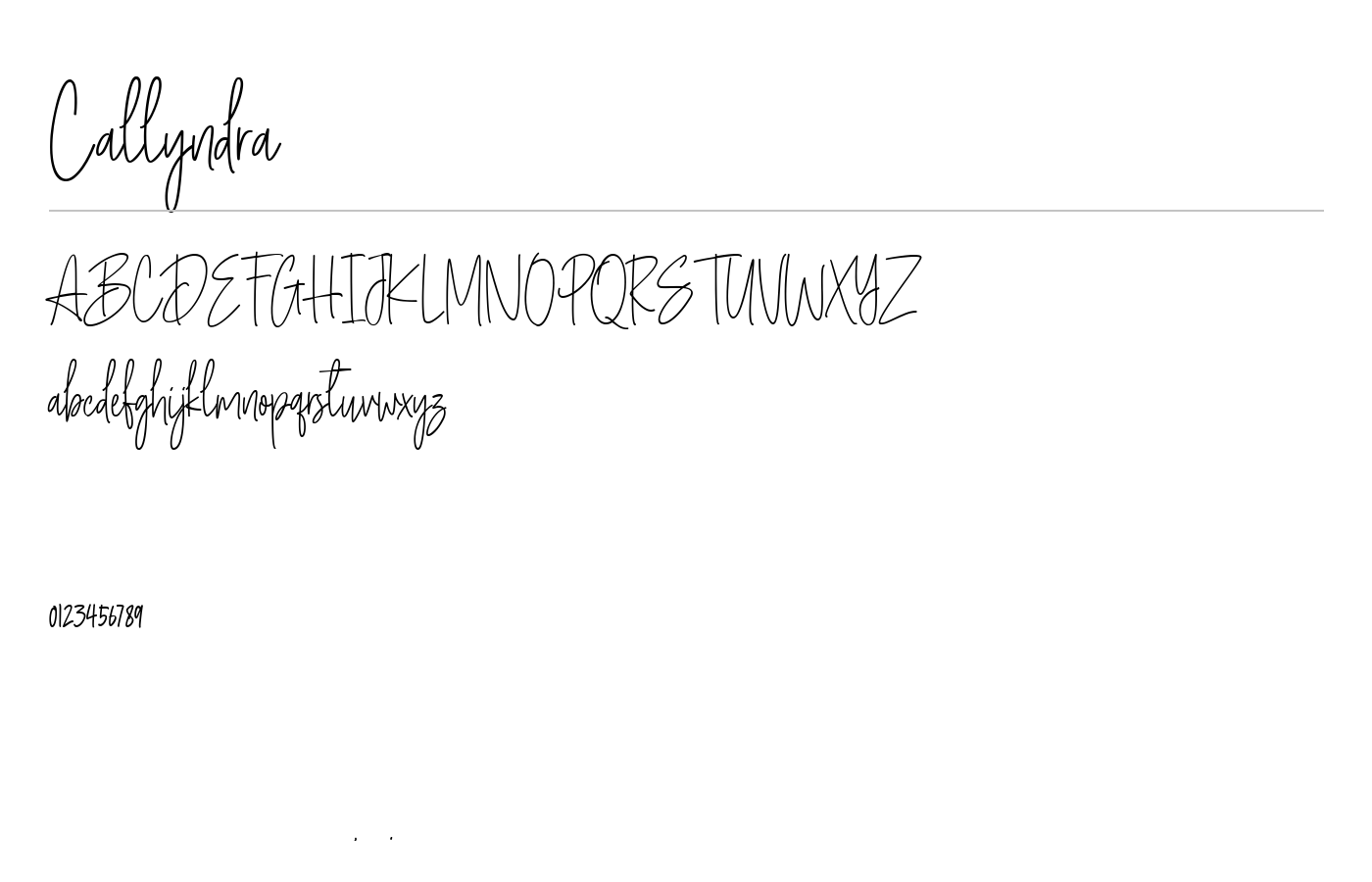
Callyndra is a delicate, hand-drawn script font with a light weight and tall, narrow letterforms that give it an elegant yet casual feel. Its fine, flowing strokes and organic shapes make it perfect for personal branding, invitations, and creative projects that seek a whimsical and approachable style. This font works beautifully in headlines or decorative text where a touch of personality and sophistication is desired.
Callyndra Font
About Callyndra Font